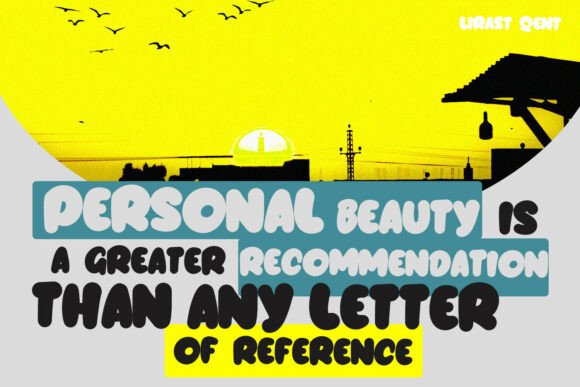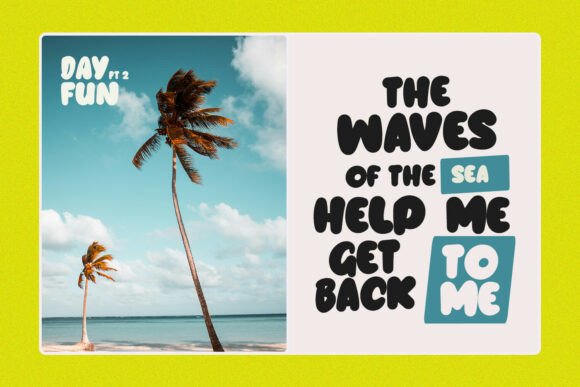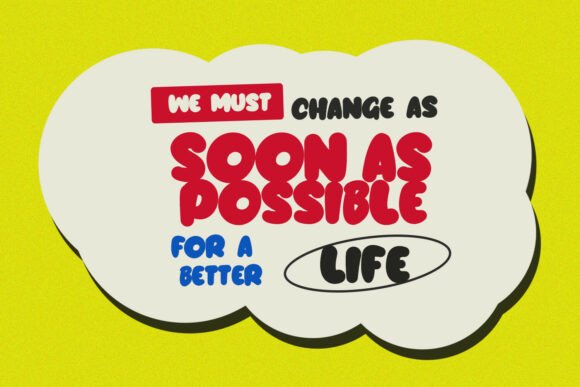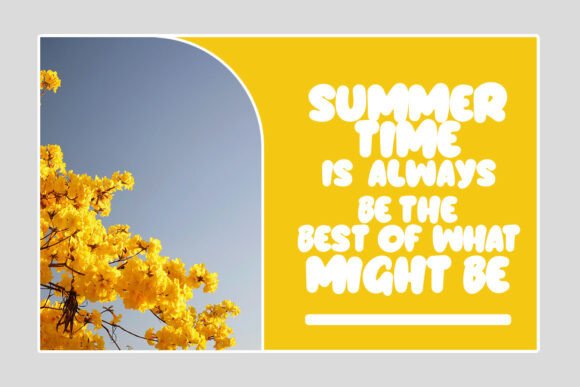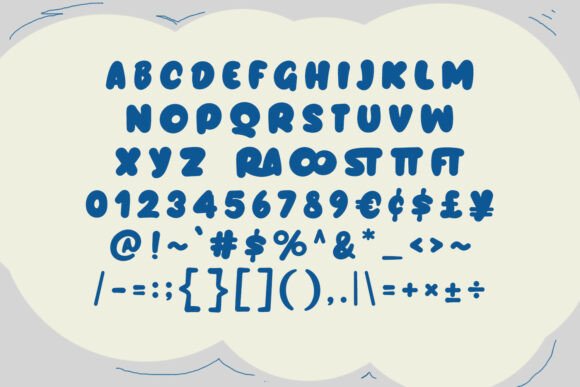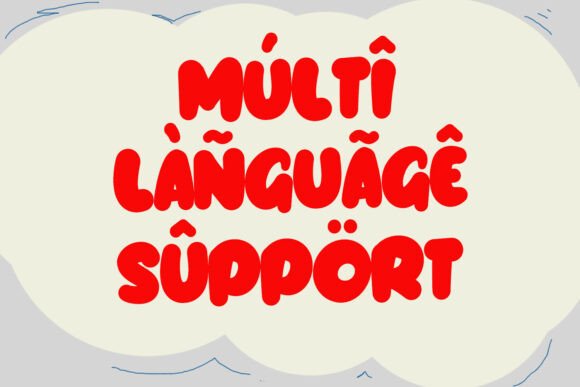
Introduction to Lirast Qent Font
Lirast Qent is a handmade bubble display handwritten font.
Key Features of Lirast Qent Font
Why Choose Lirast Qent Font?
Lirast Qent Font offers exceptional quality and versatility, making it a valuable addition to your design toolkit. Whether you’re creating for personal projects or commercial use, Lirast Qent Font delivers professional results.